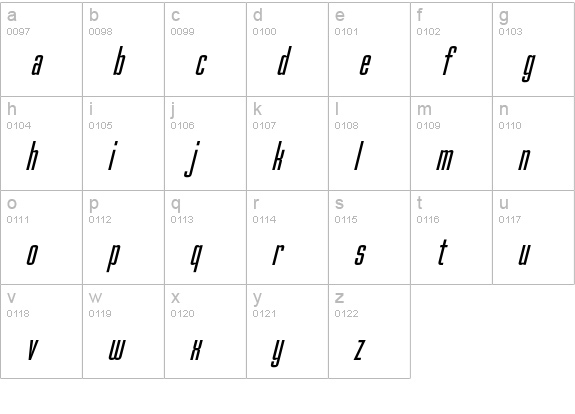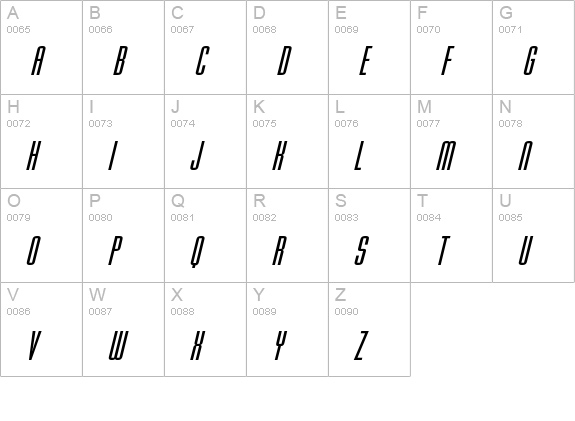
OrlandoItalics Font Details
OrlandoItalics is a stunning and elegant font that exudes sophistication and charm. With its sleek and stylish italic design, this font is perfect for adding a touch of class to any project. Whether you're working on a wedding invitation, a logo design, or a branding project, OrlandoItalics will elevate your work to new heights. The best part? OrlandoItalics is completely free to download at FontsMarket.com. This means you can access this beautiful font without breaking the bank, making it an excellent choice for designers on a budget. Don't miss out on the opportunity to enhance your designs with the timeless appeal of OrlandoItalics. Download it today and watch your projects come to life!